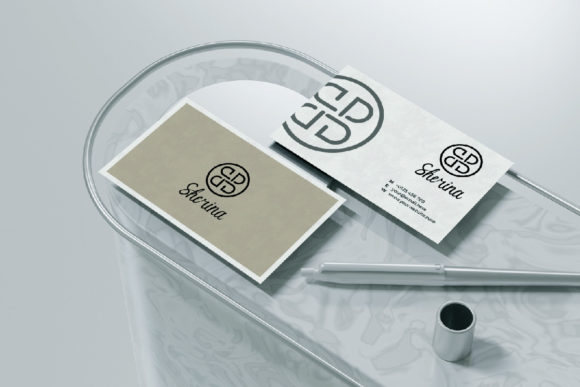
Introducing Optimistically Font: Elevate Your Designs with Elegance and Sophistication
In the world of typography, a well-crafted font can make all the difference in elevating your design to new heights. For those seeking a beautiful calligraphy font that exudes elegance and sophistication, look no further than Optimistically. This stunning font is designed to add a touch of luxury to various projects, from weddings and floristry to sales marketing, professional services, and more.
What Makes Optimistically Font Stand Out?
Optimistically is not just another font; it’s a masterpiece of calligraphy that brings a unique blend of classic charm and modern flair. Its stunning characters, alternatives, and ligatures are carefully crafted to provide a distinctive look that sets it apart from other fonts. Whether you’re working on a wedding invitation, a marketing brochure, or a professional website, Optimistically font is sure to make a lasting impression.
Key Features of Optimistically Font
- Beautiful Calligraphy: Optimistically boasts exquisite calligraphy that adds a touch of elegance to any design.
- Stunning Characters: The font features a wide range of stunning characters that can be used to create unique and captivating designs.
- Alternatives and Ligatures: With beautiful alternatives and ligatures, Optimistically offers endless possibilities for creative expression.
Ideal for Various Projects
Optimistically font is incredibly versatile and can be used for a wide array of projects. Some of the areas where this font truly shines include:
Wedding and Floristry
For wedding planners, florists, and couples looking for that special touch, Optimistically offers the perfect blend of romance and sophistication. Use it for wedding invitations, save-the-date cards, and other wedding-related materials to set the tone for a memorable event.
Sales Marketing
In the competitive world of sales and marketing, standing out is crucial. Optimistically font can help you create eye-catching brochures, flyers, and digital content that captures the attention of potential clients and sets your brand apart.
Professional Services
For professionals looking to elevate their brand image, Optimistically offers a sophisticated and elegant solution. It’s ideal for use in logos, business cards, and official documents for dentists, lawyers, consultants, and other professional service providers.
Real Estate
In the real estate sector, presenting properties in the best light is essential. Optimistically font can be used to create stunning property listings, brochures, and websites that showcase properties with elegance and style.
Music and Videography
For musicians, bands, and videographers looking for a unique way to express their art, Optimistically provides a beautiful calligraphy style that can add a personal touch to album covers, music sheets, and promotional materials.
Why Choose Optimistically Font?
With so many fonts available, why should you choose Optimistically? Here are a few compelling reasons:
Versatility
Optimistically is incredibly versatile, making it suitable for a wide range of projects and applications. Whether you’re working on a digital project or a print design, this font adapts beautifully.
Unique Designs
In a world where standing out is crucial, Optimistically offers a unique design that can help you differentiate your projects from the competition. Its elegant calligraphy and beautiful characters ensure that your designs leave a lasting impression.
Optimistically font is a beautiful calligraphy font that brings a touch of elegance and sophistication to any design. With its stunning characters, alternatives, and ligatures, along with PUA encoding for ease of use, it’s an excellent choice for a wide range of projects. Whether you’re planning a wedding, marketing a product, or providing professional services, Optimistically is sure to elevate your designs to new heights. So why wait? Discover the beauty of Optimistically font today and transform your designs with its unique charm.
Q: What is Optimistically Font?
A: Optimistically is a beautiful calligraphy font designed for creating elegant and sophisticated designs. It features stunning characters, alternatives, and ligatures.
Q: What projects is Optimistically Font suitable for?
A: Optimistically font is ideal for a variety of projects, including weddings, floristry, sales marketing, professional services, real estate, music, and videography.